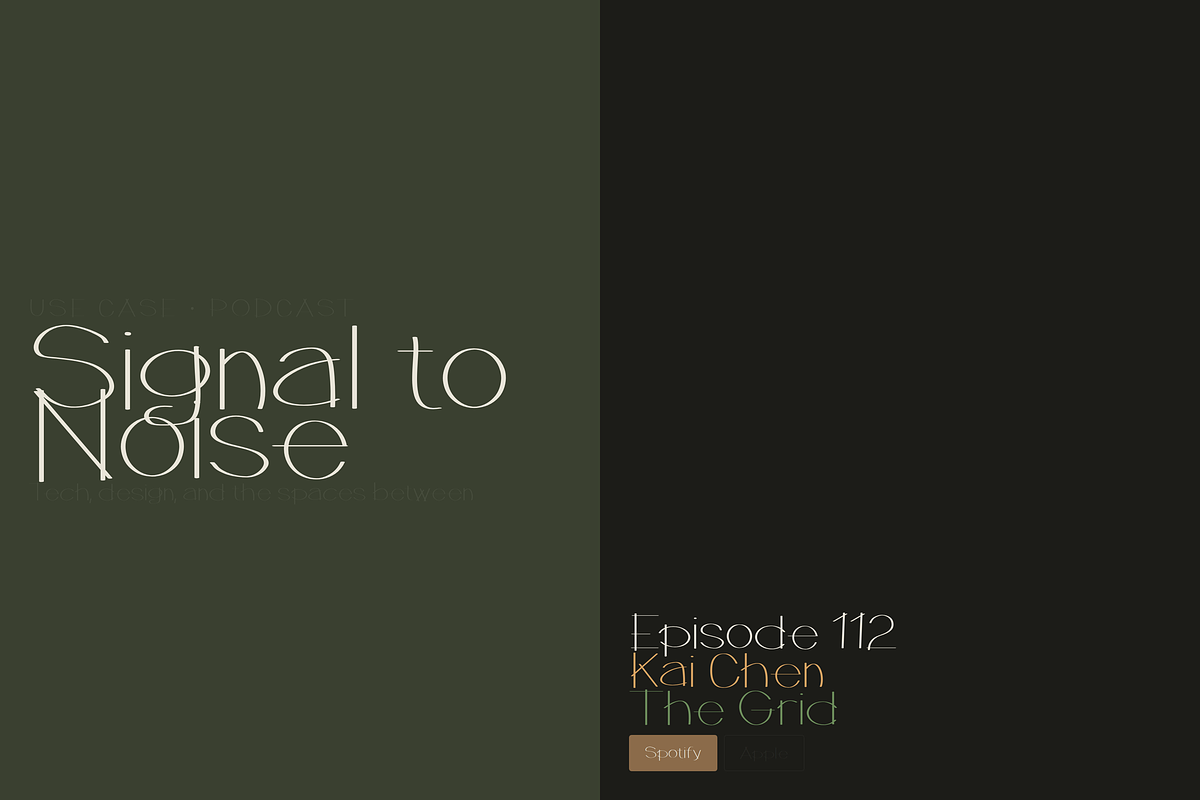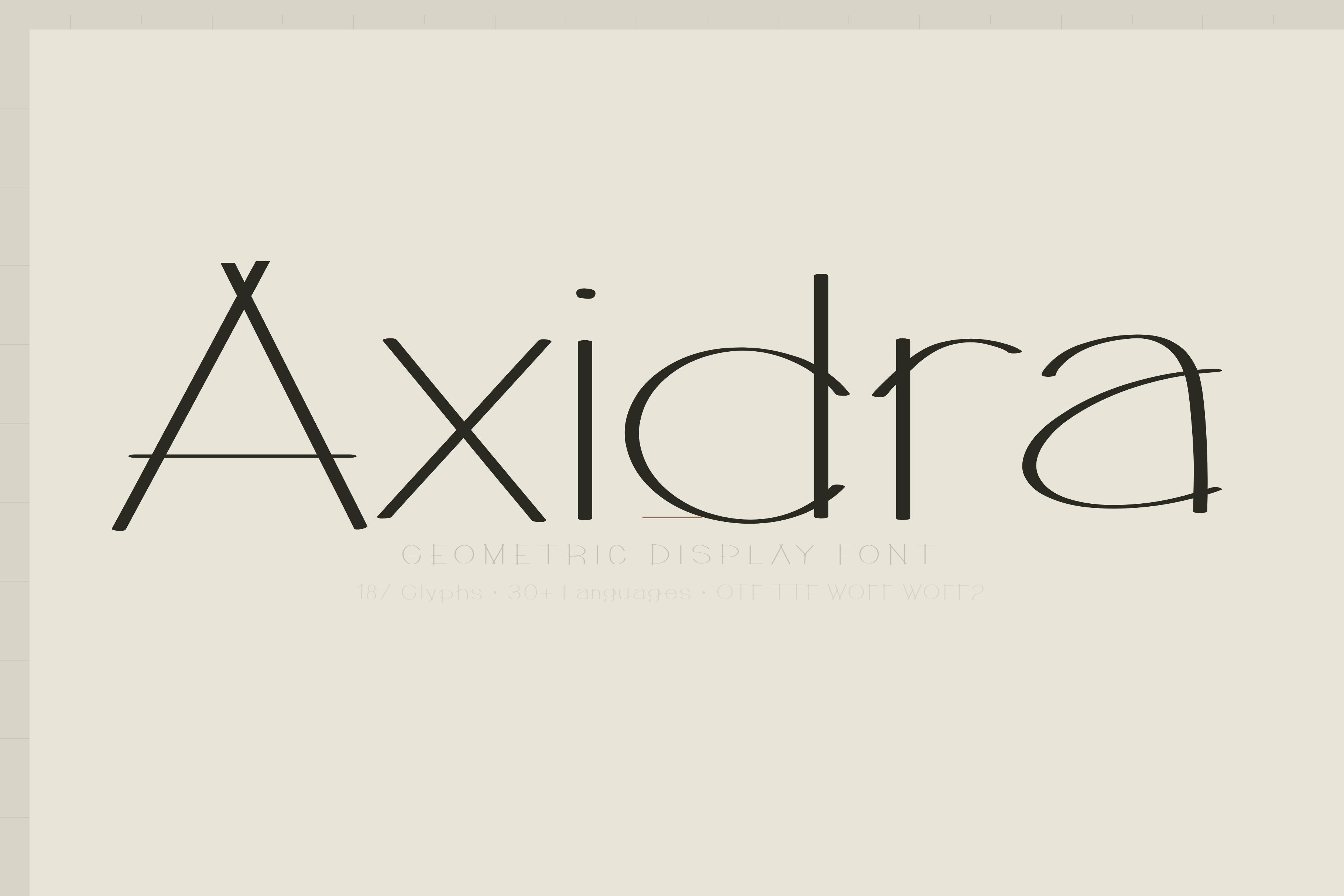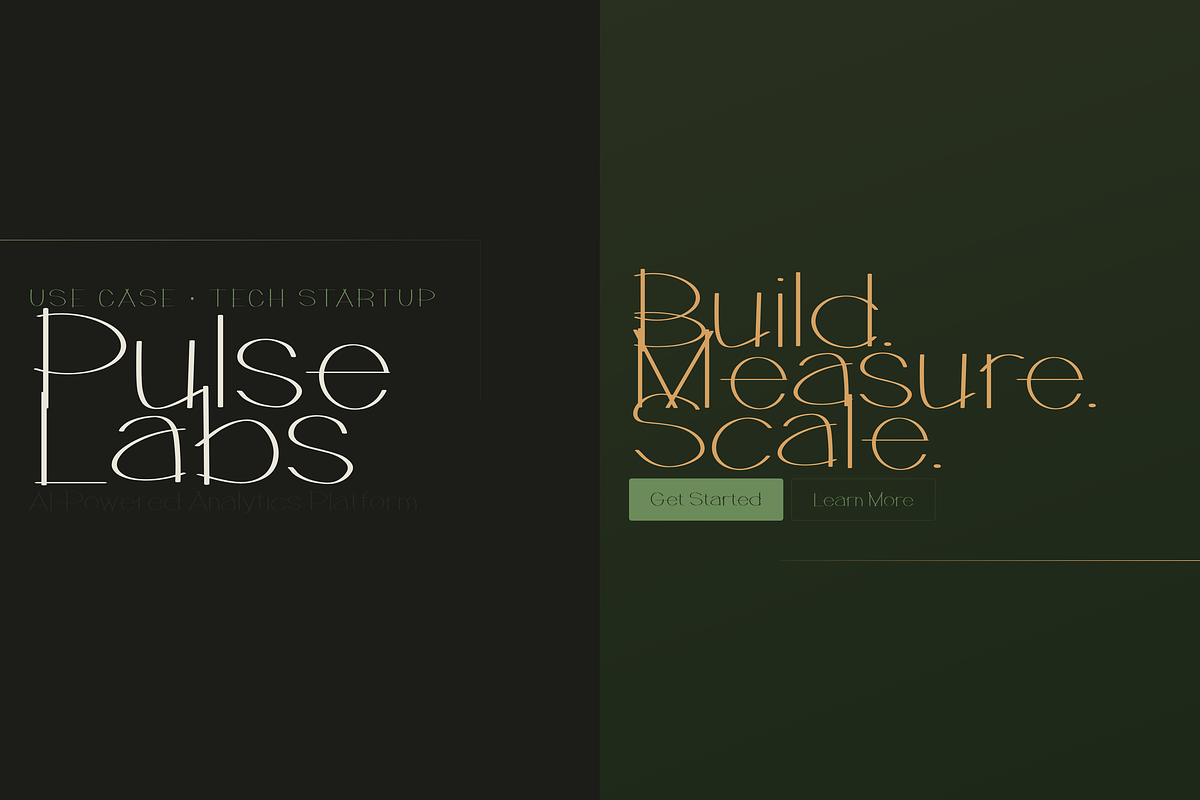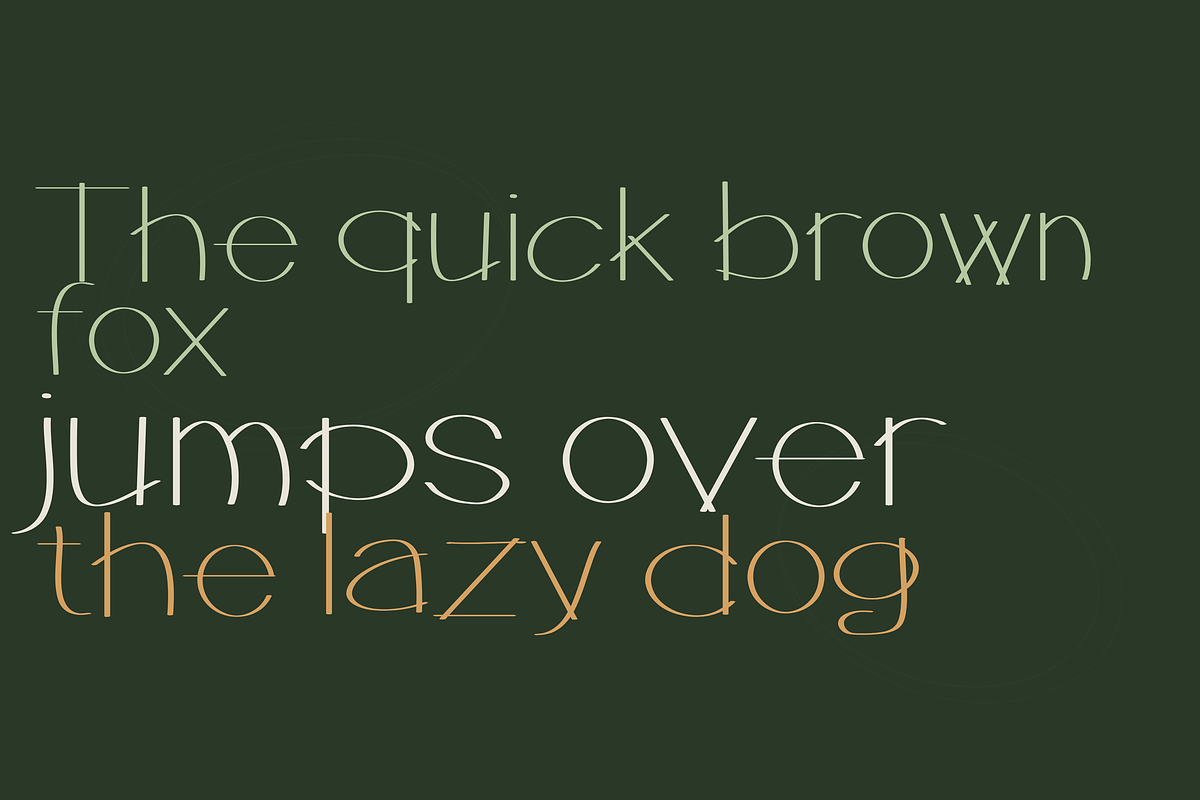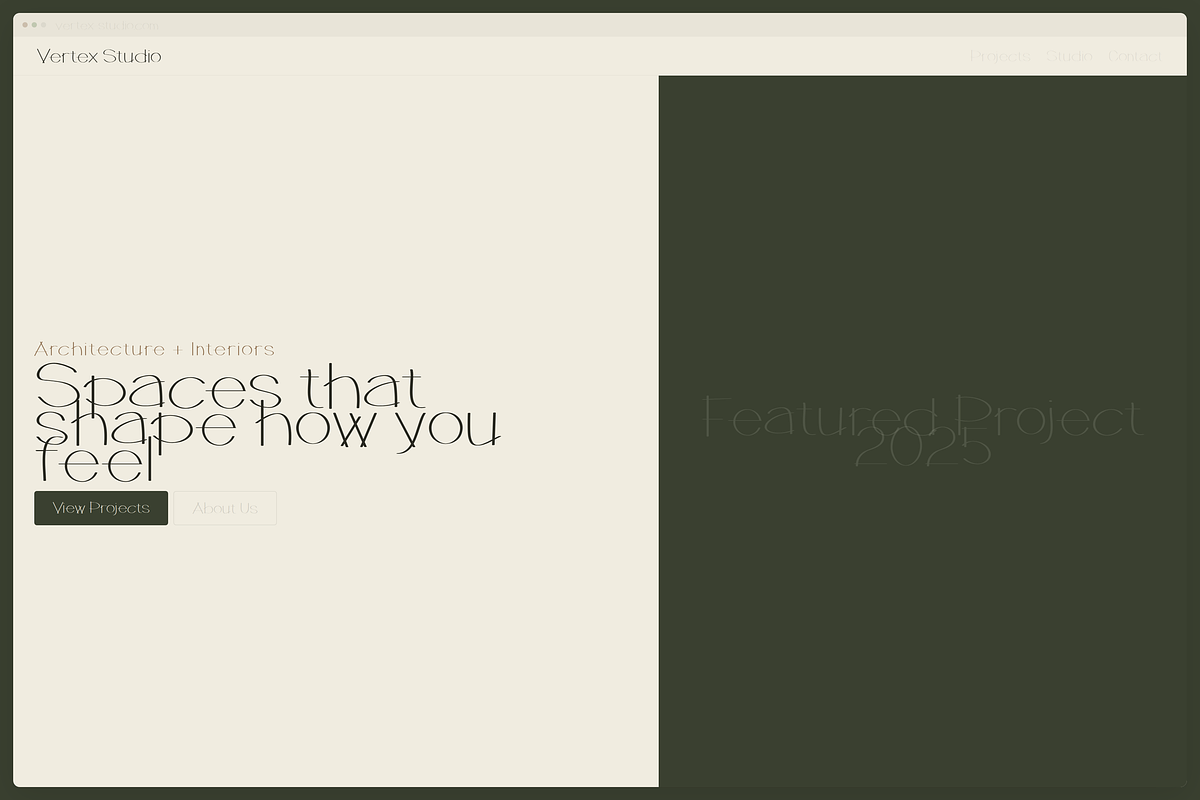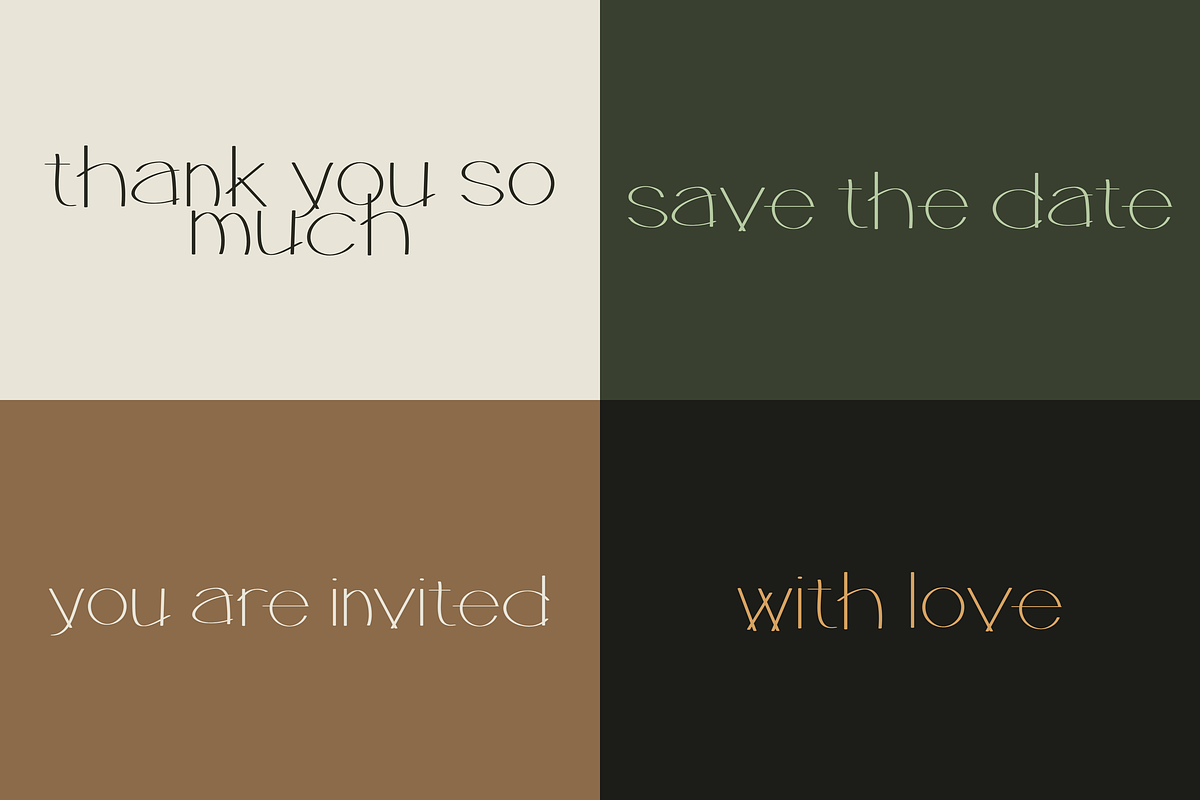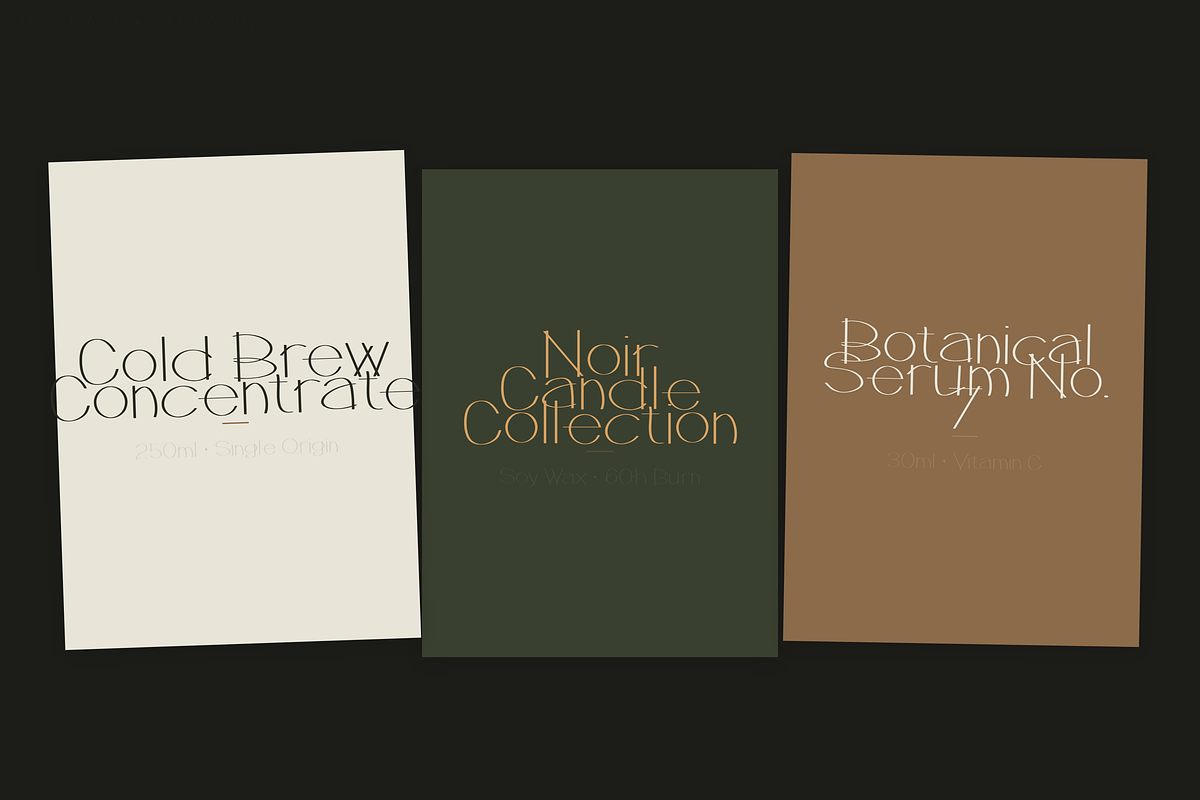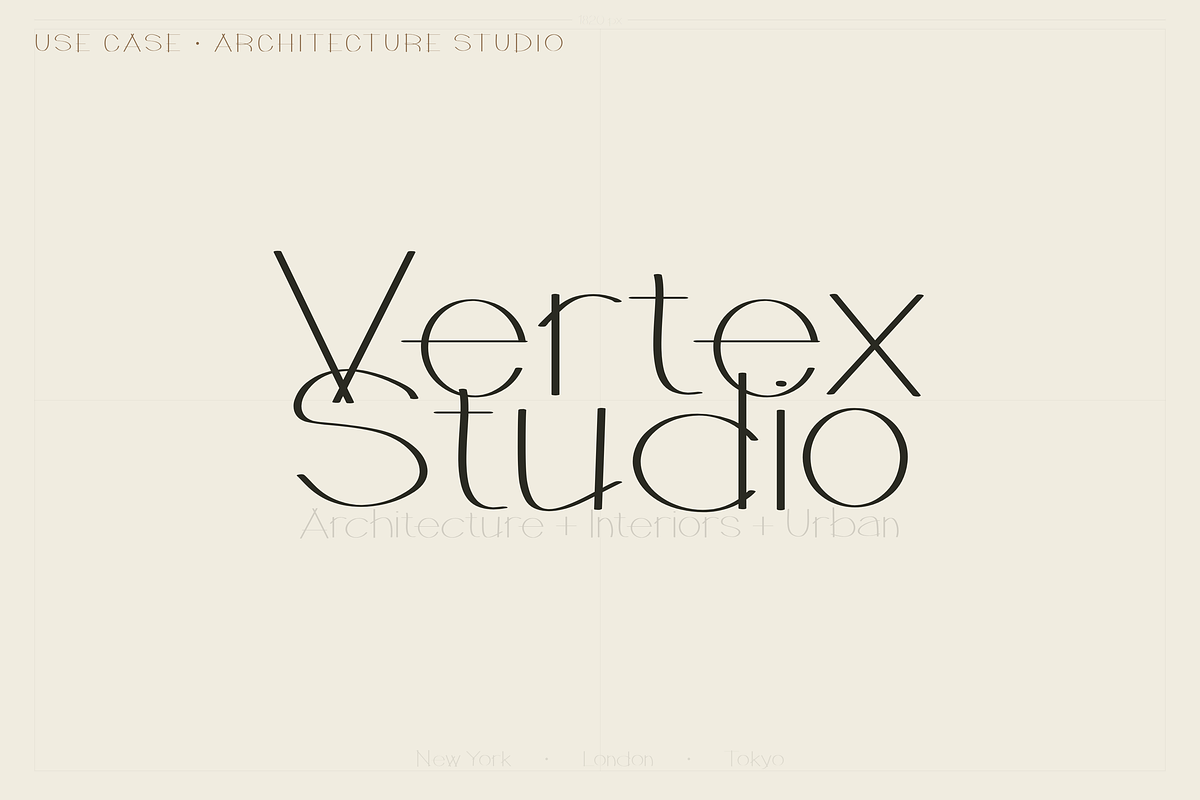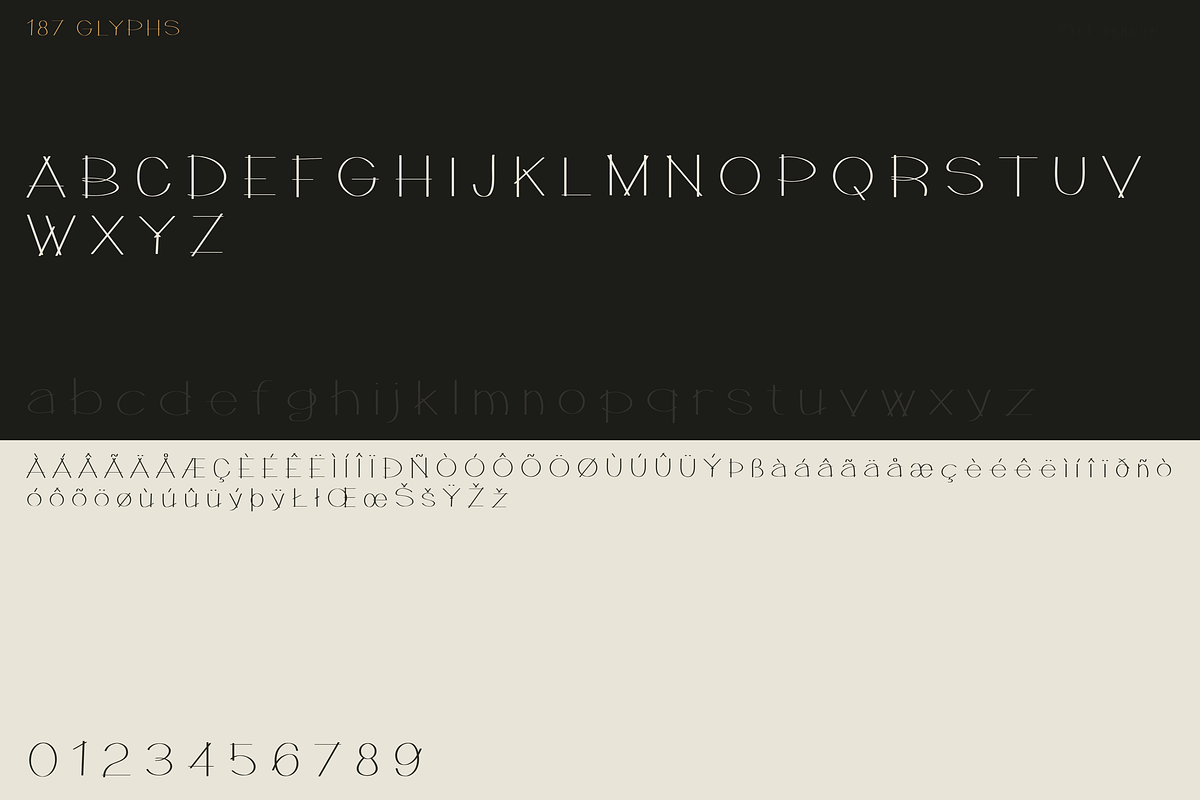
Axidra — Geometric Display Font
Introducing Axidra — a geometric display font with razor-thin strokes and crossbars that extend beyond the letterforms. Every A, H, K, and X has lines that reach further than expected — creating a sense of precision and movement that you won't find in typical geometric fonts.
Axidra looks like it was drawn with an architect's ruling pen. Structured, intentional, and quietly striking.
Axidra Font
- 187 glyphs
- Full uppercase & lowercase
- Numerals, punctuation & symbols
- Extended Latin character set
PERFECT FOR:
- Architecture studios & interior design
- Tech startups & SaaS products
- Fashion magazines & editorial layouts
- Music festivals & electronic event posters
- Podcast covers & channel branding
- YouTube thumbnails & video titles
- Luxury skincare & cosmetics packaging
- Coffee & specialty beverage labels
- Stationery & invitation suites
- Website headers & landing pages
- Logo design & brand identities
- Social media posts & stories
- Art gallery & exhibition materials
- Film credits & title sequences
WHY AXIDRA? Most geometric fonts feel safe and predictable. Axidra breaks the grid — its signature extended crossbars give every word an architectural edge. The thin strokes keep it elegant while the sharp details demand attention. Whether it's a tech brand, a fashion editorial, or an album cover — Axidra adds precision without coldness. One typeface that feels both engineered and alive.